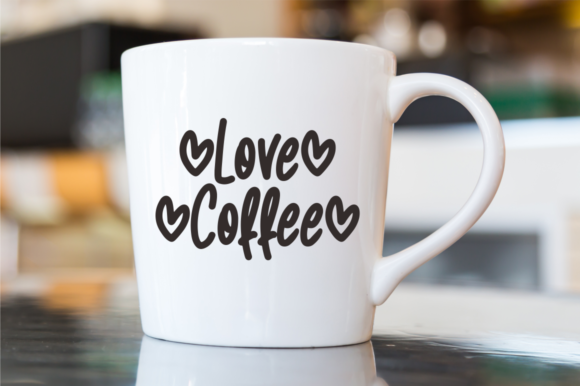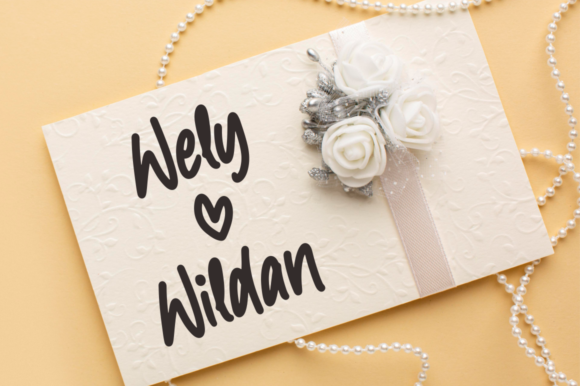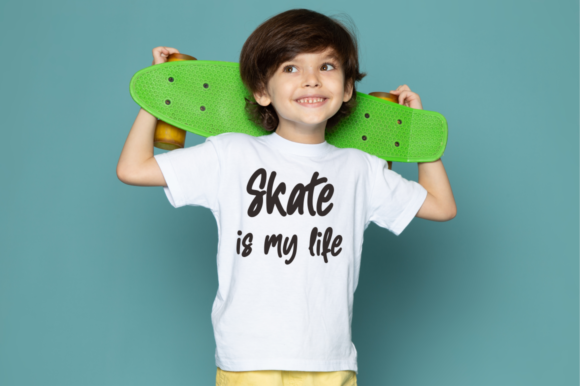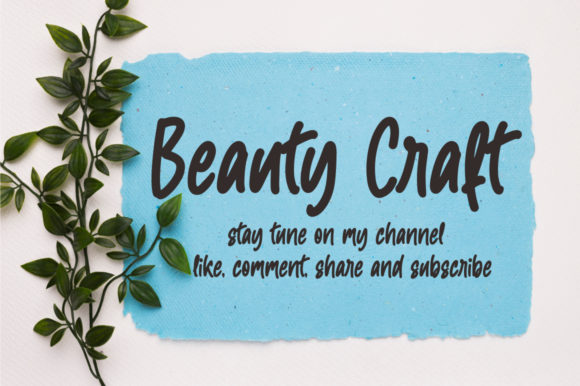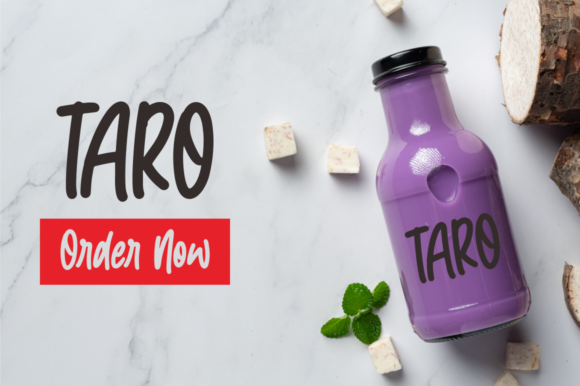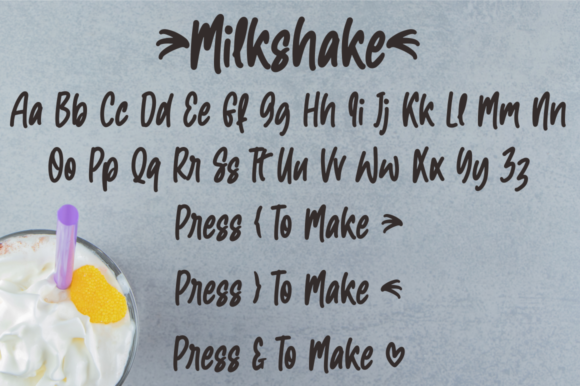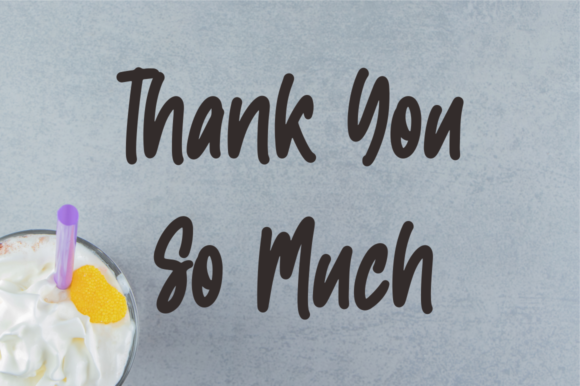
Milkshake Font
About Milkshake Font
Milkshake is a casual and quirky looking handwritten font. Fall for its ravishing style and use it to create gorgeous wedding invitations, beautiful stationary art, eye-catching social media posts, and much more!